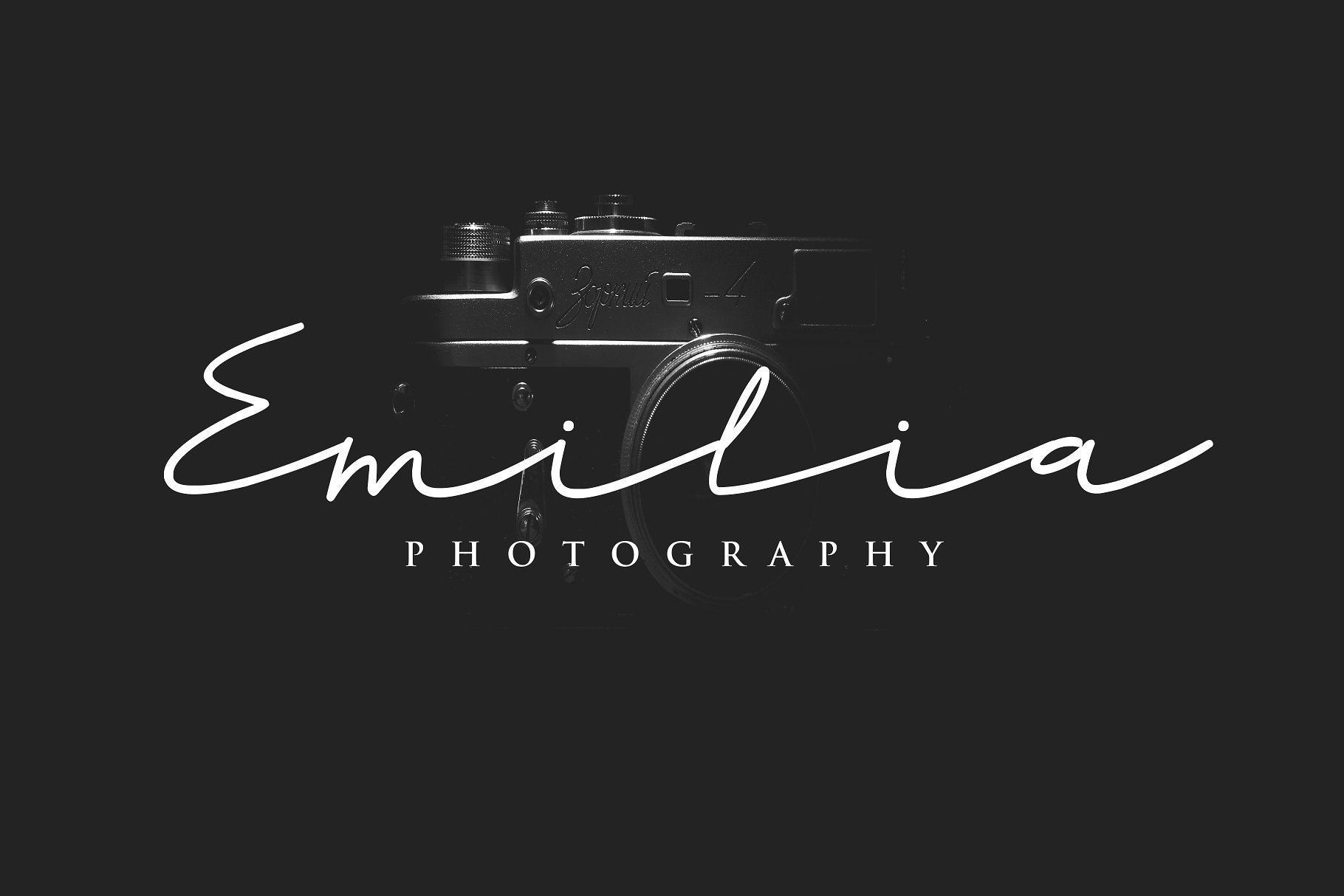
Rahayu Script
Rahayu Script Font
Rahayu is a signature font with a handwritten script style that makes this font looks elegant, natural, stylish and perfect for any projects that need signature taste and impeccable design.